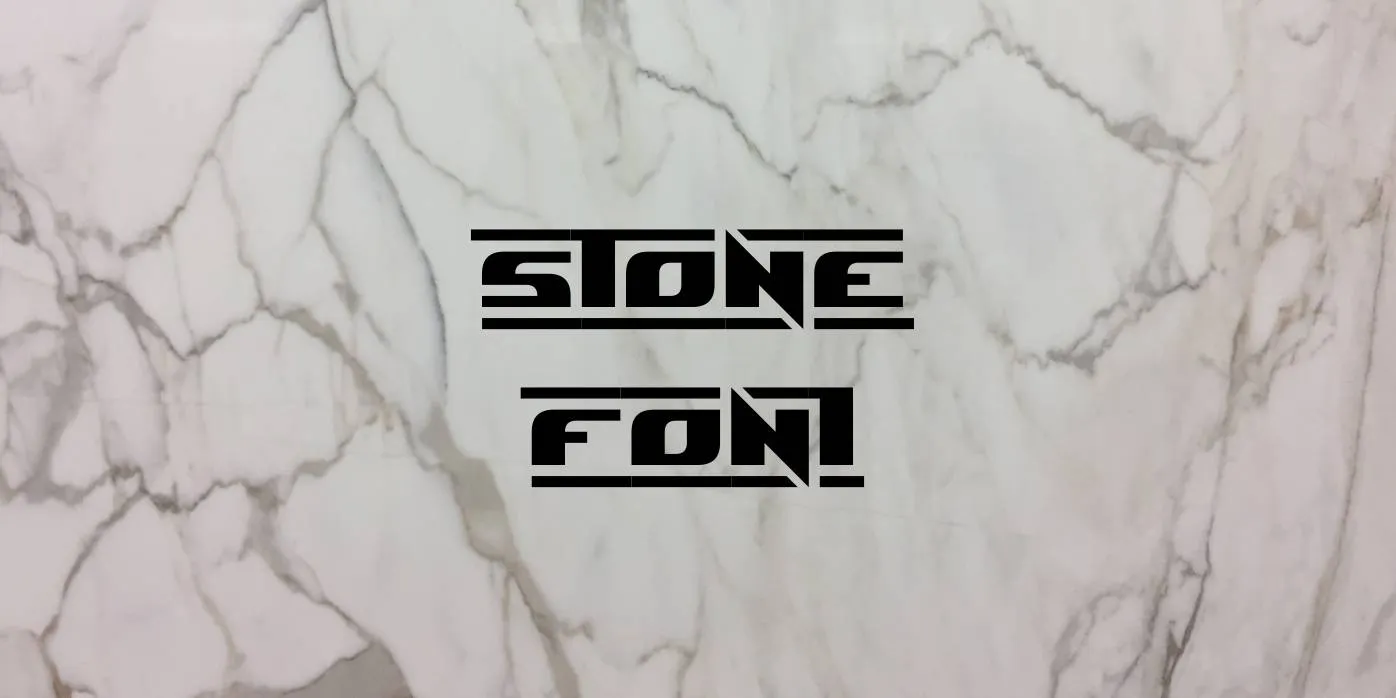
Stone Font
Stone is the font is one of the unique shape fonts with fashionable shape and high legible look. The font belongs to a Techno typeface family and the designer of this typeface is Maik Henschel. This typeface has pretty cool and high visible characters with bold touches. It has Special glyphs with a condensed line below and above.
The font family has TTF features consisting of Uppercase and Lowercase letters, mandatory symbols and Numbers / Numerals, etc. This typeface support many languages and accents for international users. Its characters provide a bold and top-notch visible look due to its momentous characters. One of the great things about this typeface is that it is common for personal and commercial use and there is not any restriction by the author.